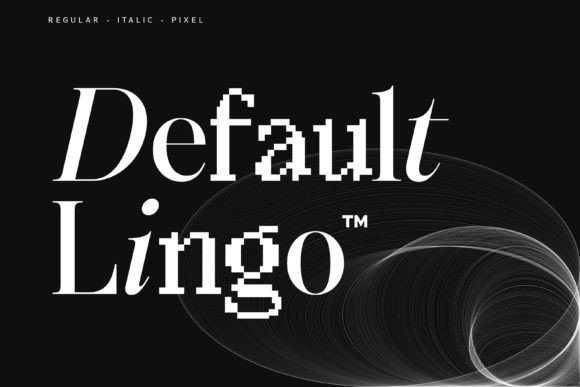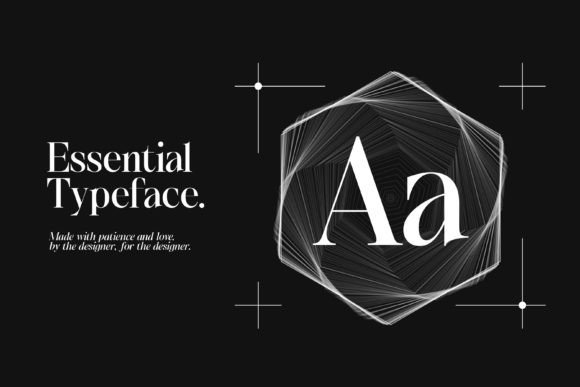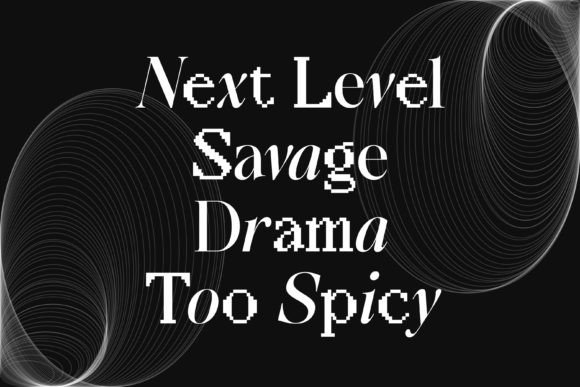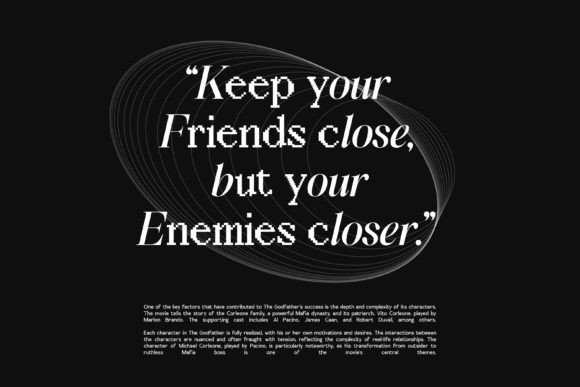
Default Lingo Font
About the Default Lingo Font
Let us introduce you to Default Lingo Font, where timeless design meets modern craftsmanship. Default Lingo is a mix of font combined with regular, italic, and pixel styles. This font is inspired by the motto of the country this studio originates from, namely Indonesia. Adopting the motto “Bhinneka Tunggal Ika” which means “Different but still one”, illustrates the hope of this font to be able to combine different styles.
Default Lingo’s versatility shines in headlines, short-form text, and branding applications where its playful energy can be effectively showcased. It’s ideally suited for posters, logos, and packaging designs requiring a bold, eclectic feel. However, its diverse styles might prove distracting in body text or UI elements requiring high readability.
For optimal pairings, consider pairing Default Lingo with clean sans-serif fonts like Open Sans for body copy to balance its eclectic nature, or a geometric sans-serif for a more modern, structured feel. A classic serif like Garamond could provide elegant contrast for sophisticated applications. Avoid pairing it with other highly decorative or script fonts to prevent visual overload.
The overall personality of Default Lingo is energetic and diverse, reflecting its Indonesian inspiration. Its blend of styles makes it well-suited for brands seeking a vibrant, expressive, and uniquely Indonesian-influenced visual identity.
Default Lingo Font Usage Examples
Default Lingo Font Example